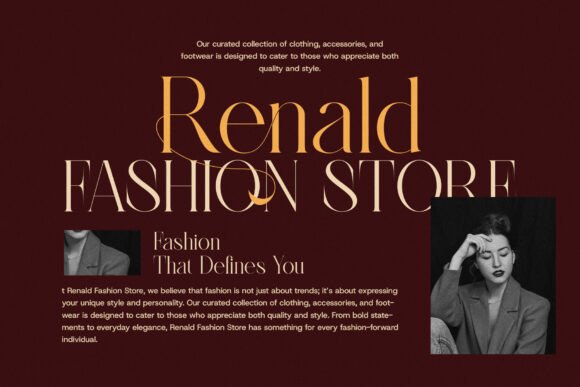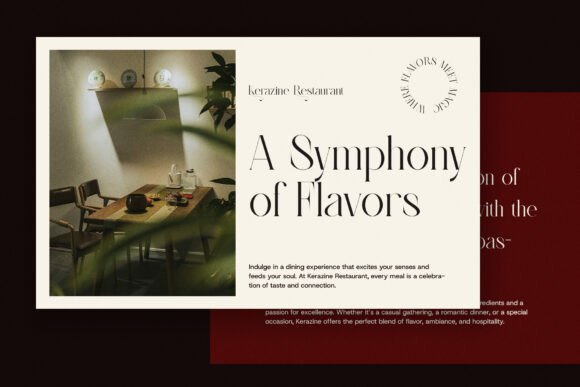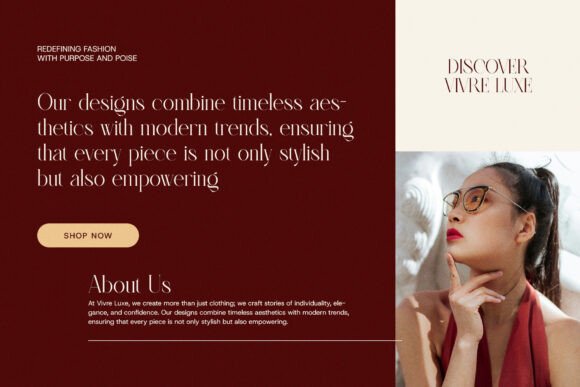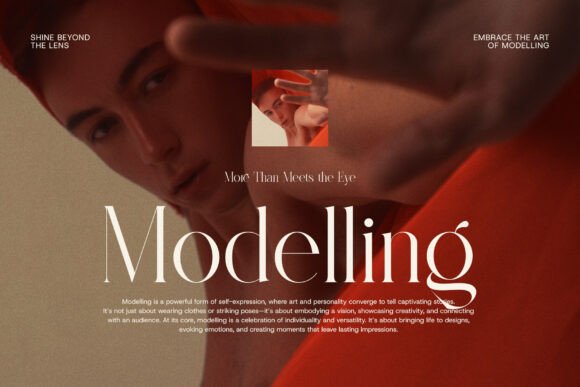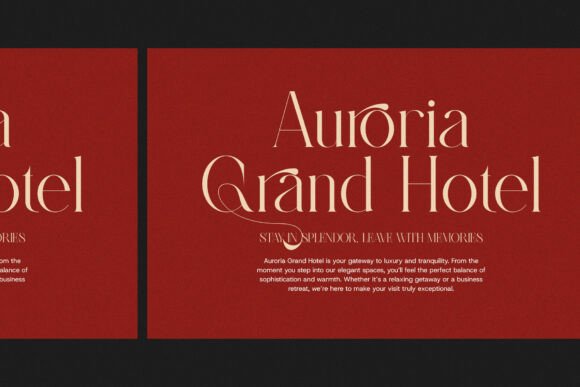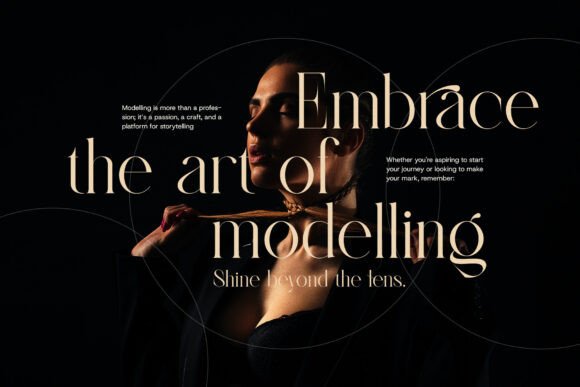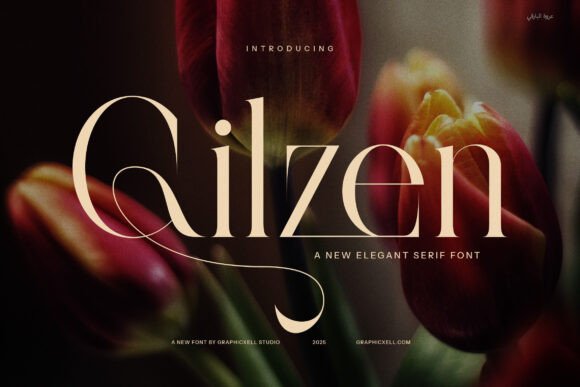
Introducing Glizen Font: Elevate Your Designs with Elegance and Sophistication
In the world of typography, a font can make or break a design. It’s the foundation upon which your creative vision is built, and choosing the right one can be a daunting task. If you’re on the hunt for a typeface that exudes modernity, elegance, and a touch of creativity, look no further than the Glizen Font. Specifically, the Glizen Elegant Serif Font has been making waves in the design community for its unique ability to blend sophistication with a fresh, contemporary vibe.
The Essence of Glizen Elegant Serif Font
Glizen Elegant Serif Font is not just another addition to the vast sea of typefaces available today. It stands out with its sleek serifs, balanced proportions, and graceful curves that come together to create a harmonious look. This modern and stylish typeface is versatile, making it suitable for a wide range of design projects, from luxury branding and high-end magazines to elegant wedding invitations and sophisticated digital interfaces.
Key Features of Glizen Font
- Sleek Serifs: The serifs in Glizen Font are carefully crafted to add a touch of elegance and refinement to any text. They contribute to a clean and polished appearance that’s hard to achieve with more traditional typefaces.
- Balanced Proportions: The font’s balanced design ensures that it remains legible and aesthetically pleasing, even at smaller sizes. This makes it perfect for body text as well as headings.
- Graceful Curves: The curves in Glizen Font are meticulously designed to add a soft, yet sophisticated feel to the text. This feature enhances readability and adds a touch of warmth to the overall appearance.
- Distinctive Ligatures and Alternate Forms: One of the standout features of Glizen Font is its collection of ligatures and alternate forms. These typographic elements allow for a high degree of personalization, enabling designers to craft unique and eye-catching typography that stands out from the crowd.
Endless Possibilities for Personalization
The inclusion of distinctive ligatures and alternate forms in Glizen Font opens up a world of creative possibilities. Designers can experiment with different combinations to add personality and flair to their work. Whether you’re aiming for a subtle, sophisticated look or something more playful and creative, Glizen provides the tools you need to bring your vision to life.
Applications of Glizen Elegant Serif Font
The versatility of Glizen Elegant Serif Font makes it suitable for a variety of applications. Here are a few ideas to get you started:
- Luxury Branding: Use Glizen to create a high-end feel for your brand. Its elegant serifs and sophisticated curves make it perfect for logos, packaging, and marketing materials.
- Digital and Print Media: Whether you’re designing a magazine, brochure, or website, Glizen can add a touch of elegance and professionalism to your content.
- Wedding and Event Design: Create beautiful wedding invitations, menus, and event programs with Glizen. Its refined appearance makes it ideal for special occasions.
- Web Design: Glizen’s clean and modern design works well for digital interfaces, including website headers, blog posts, and mobile apps.
Glizen Elegant Serif Font is a game-changer for designers and crafters looking to elevate their work with a modern, stylish, and highly versatile typeface. Its blend of sleek serifs, balanced proportions, and graceful curves, combined with its distinctive ligatures and alternate forms, make it an excellent choice for a wide range of design projects. With Glizen, you can create unique and eye-catching typography that leaves a lasting impression. So, why settle for ordinary when you can make your designs extraordinary with Glizen Font?